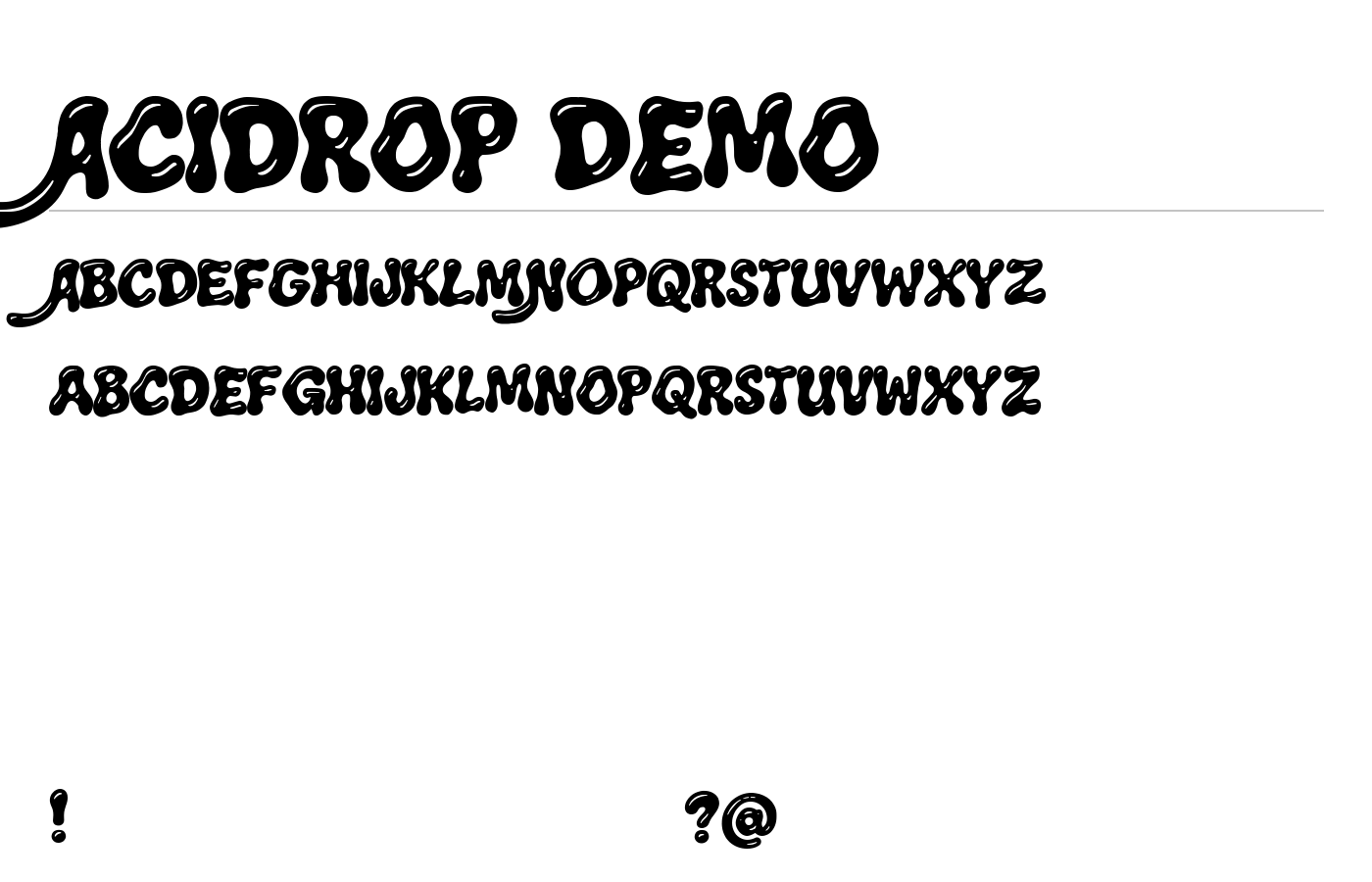
Acidrop Demo is a bold, playful display font with a quirky, liquid-like texture that gives it a fun and energetic vibe. Its rounded, irregular shapes with dripping details make it perfect for eye-catching headlines or creative branding that seeks a lively, unconventional look. This font works well for posters, logos, and projects aiming for a youthful or artistic feel.
Acidrop Demo Font
About Acidrop Demo Font